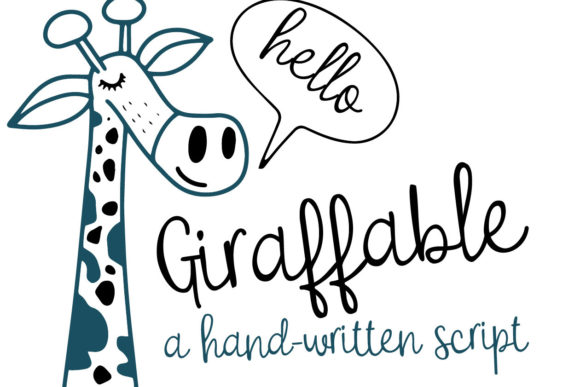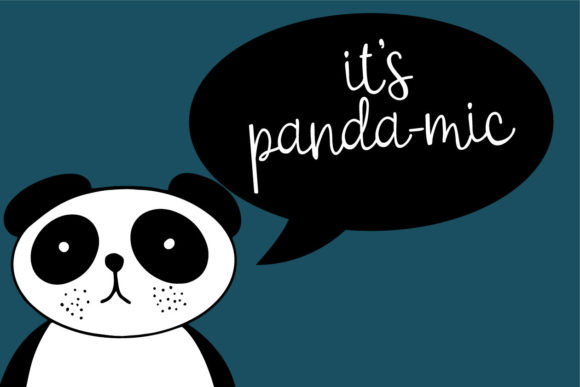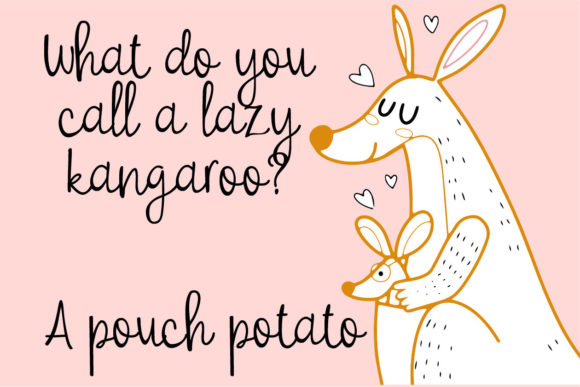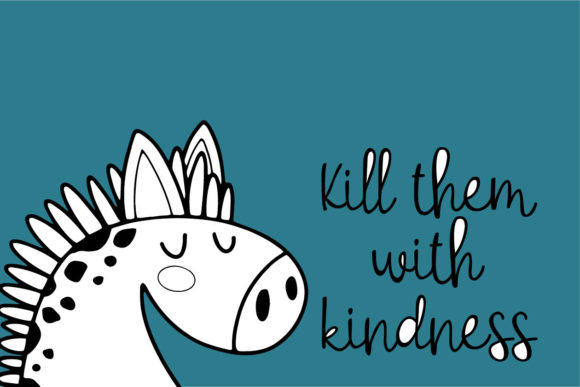
About Giraffable Font
Giraffable is a lovely and timeless handwritten font. It is the best choice for creating eye catching logos, branding and quotes. Every letter has a unique and beautiful touch, which will make your design come alive!